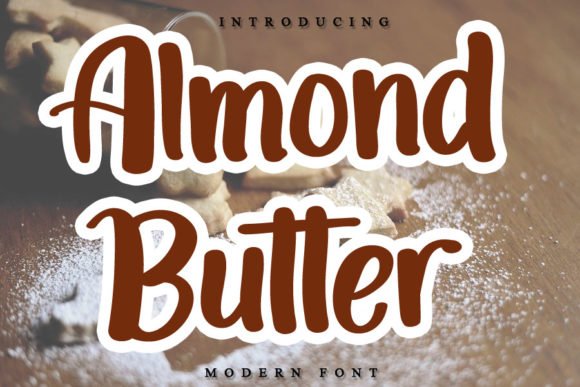
Unlock the Flair of Your Designs with Almond Butter Font
Have you ever stared at a blank page, feeling the creative juices flowing but struggling to find the perfect font to bring your vision to life? That’s exactly how I felt last week, working on a new project for a client. I was searching for the perfect handwritten font to add that extra oomph to their brand, and that’s when I stumbled upon the Almond Butter Font.
This beautiful, fresh font is perfect for a wide range of designs, from YouTube banners to wedding invitations, and even crafts. With its unique, handcrafted feel, the Almond Butter Font is sure to elevate your designs and make them stand out from the crowd. As a designer, you’ll love the flexibility and versatility it offers, making it an invaluable addition to your toolkit.
By incorporating the Almond Butter Font into your designs, you’ll not only add a touch of personality but also give your business a professional edge. Whether you’re a seasoned pro or just starting out, this font is sure to be a game-changer for your creative projects.
Key Features of Almond Butter Font
- Unique Characteristics: Almond Butter Font features a unique, hand-drawn design with a warm and inviting tone, making it perfect for creating a friendly and approachable atmosphere in branding, packaging, and advertising materials.
- Style Variations: The font comes in multiple style variations, including Regular, Bold, Italic, and Bold Italic, allowing users to customize their designs and create a cohesive visual identity.
Almond Butter Font Review
Overall, I think the Almond Butter Font has some nice qualities, but it’s not without its limitations.
- The font has a unique, hand-drawn feel that’s perfect for creative projects.
- It’s highly customizable, with a wide range of options for color, size, and style.
- The font is available in multiple weights, making it suitable for both title text and body text.
- The font can be quite busy, with a lot of unnecessary details that may be distracting in certain contexts.
- The lack of a consistent line width makes it difficult to use for longer blocks of text.
- The font’s legibility is compromised at smaller sizes, making it less suitable for web or mobile applications.
While the Almond Butter Font has its strengths, I think it’s best suited for projects where a creative, hand-drawn feel is desired. It’s not the most versatile font, but it can be a great choice for the right project. With some careful planning and design considerations, it’s possible to work around its limitations and create something truly unique and effective.
Getting the Most Out of Almond Butter Font
To get the most out of Almond Butter Font, try the following tips:
- Combine Almond Butter Font with other fonts to create a unique and eye-catching design.
- Use Almond Butter Font to highlight important information or create a sense of hierarchy in your design.
Almond Butter Font is commonly used for:
- Health and wellness marketing.
- Designing menus and packaging.
Alternatives to Almond Butter Font for Designers
1. Ostrich Sans
Ostrich Sans is a sans-serif font that offers a clean and modern look. It’s ideal for use in digital products, logos, and headings where a clear and concise message is required.
Compared to Almond Butter Font, Ostrich Sans is more geometric and has a more modern feel, while Almond Butter Font has a more distressed and vintage look.